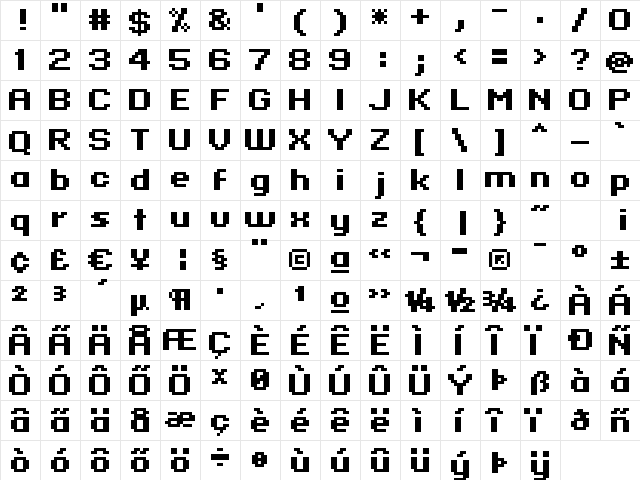
standard 07_64 Regular
Design Context for standard 07_64 Typeface
standard 07_64 offers clean, dependable letterforms without strong stylistic allegiance, making it a practical choice for designers who need flexibility.
Pro Tip: Use standard 07_64 in both headline and body roles to test its range before committing to a single application.